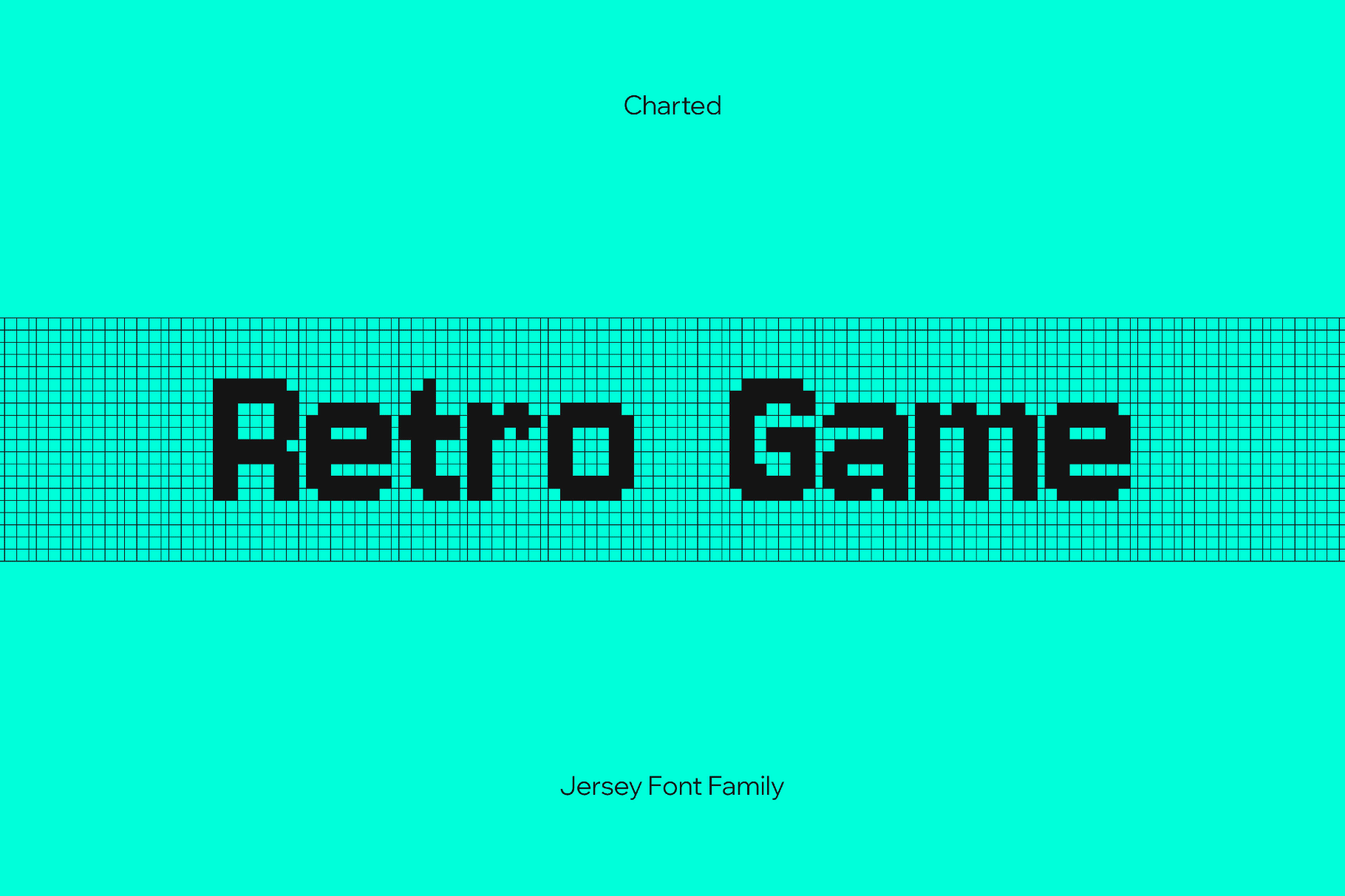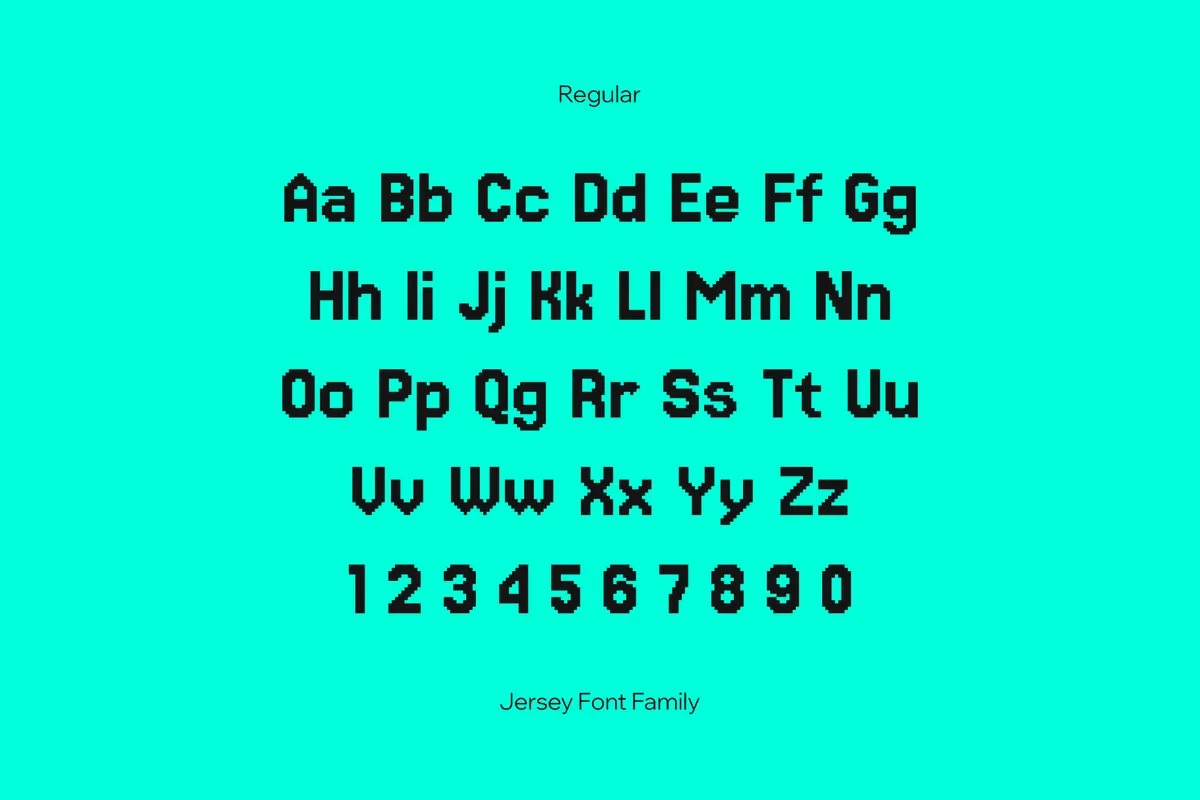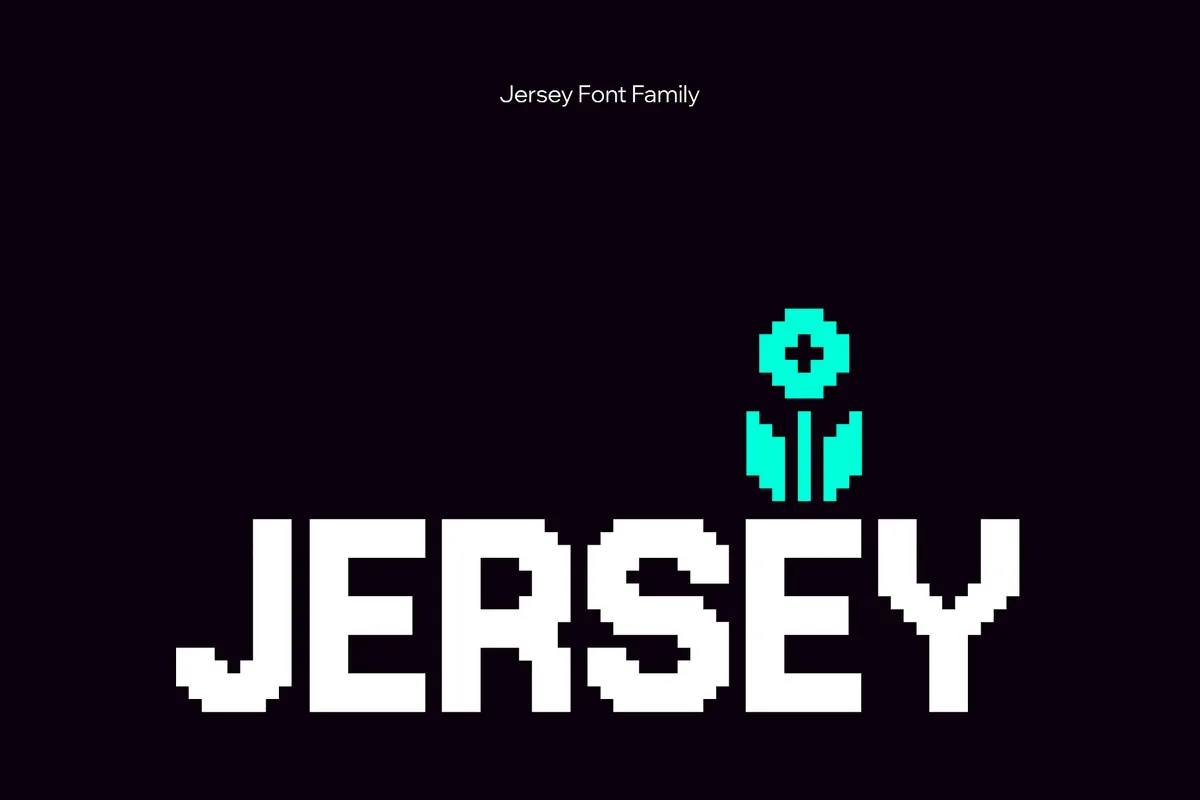
Jersey Font Family
Jersey is a grid-built sans with athletic block lettering through a pixel loom. Square shoulders, stepped diagonals, and stout counters look like a scoreboard. Spacing reads even and upright, so names and numbers sit neatly on stripes, bands, and panels.
Use it for team sweaters, scarf stripes, beanies, and other knit or crochet projects that need player names, initials, and large jersey-style numerals. It also works for pattern books, pixel art posters, scoreboard-inspired branding, DIY merch for fan clubs, and titles for print or social graphics.
- Two styles: Regular and Charted.
- Uppercase and lowercase letters, numbers, punctuation, and symbols.
- Multilingual support with international characters suited to extended Latin-based languages.